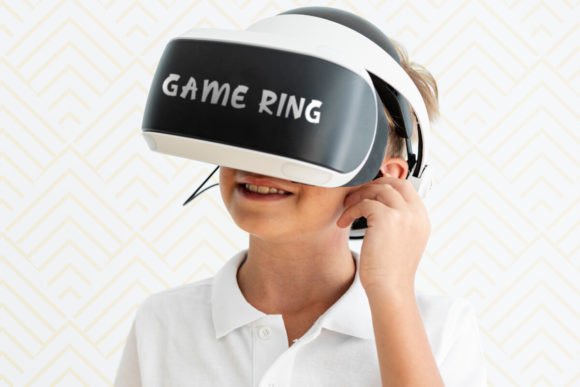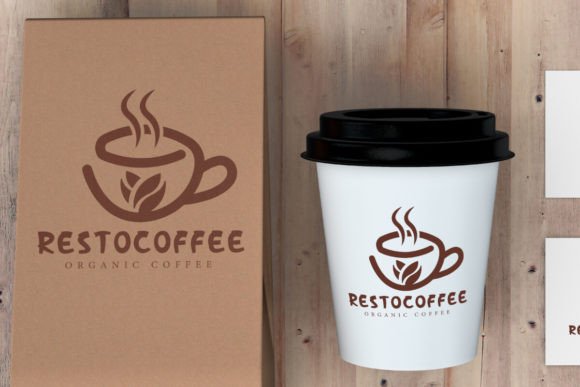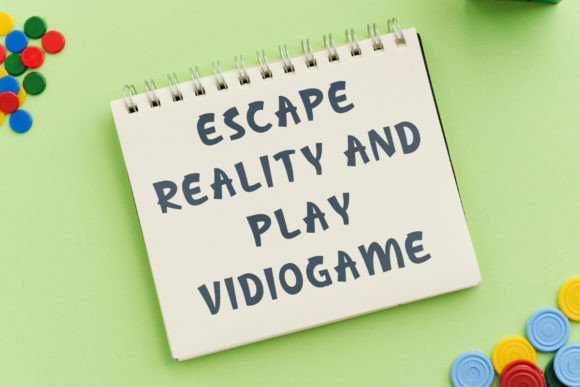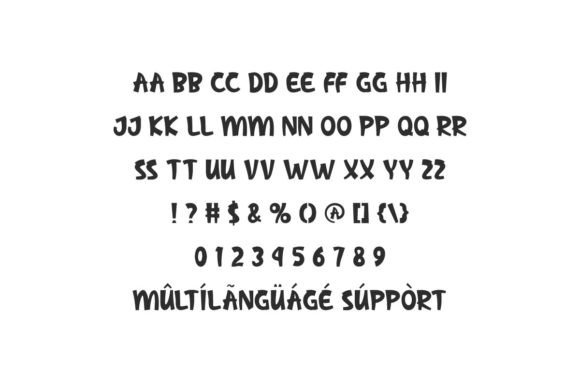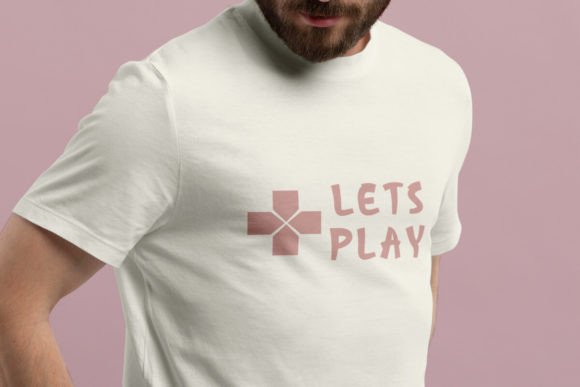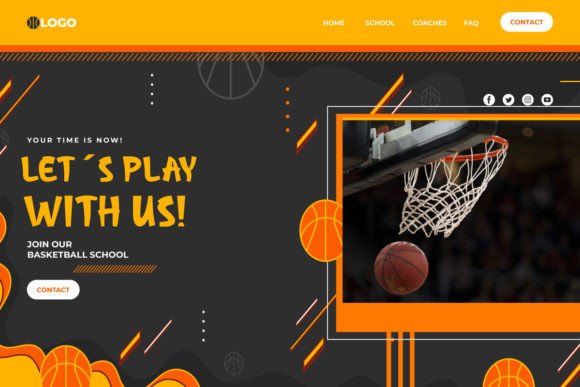
Introducing Game Ring Font: The Ultimate Display Font for Modern Fun and Games
Are you tired of using the same old fonts for your designs? Look no further! Game Ring Font is a modern, fun, and comic-inspired display font designed by VinType Studio to add a touch of excitement to your creative projects. This font is perfect for designers and crafters who want to create engaging and playful designs that capture the attention of their audience.
What is Game Ring Font?
Game Ring Font is a unique and creative display font that is inspired by the world of games. Its modern and fun design makes it perfect for a wide range of industries, including advertisement, café, event or festival, fashion, food and drink, game, handicraft, movie, music, and more. This font is designed to keep you interested and excited, making it ideal for projects that require a playful and energetic touch.
Key Features of Game Ring Font
- Modern and Fun Design: Game Ring Font has a unique and playful design that is sure to capture the attention of your audience.
- Comic-Inspired: This font is inspired by the world of comics, making it perfect for projects that require a fun and energetic touch.
- Display Font: Game Ring Font is a display font, making it perfect for headlines, titles, and other creative projects.
- Versatile: This font is suitable for a wide range of industries, including advertisement, café, event or festival, fashion, food and drink, game, handicraft, movie, music, and more.
Who Can Benefit from Game Ring Font?
Game Ring Font is perfect for designers and crafters who want to add a touch of fun and excitement to their projects. This font is ideal for:
- Graphic Designers: Game Ring Font is perfect for graphic designers who want to create engaging and playful designs for their clients.
- Crafters: This font is ideal for crafters who want to add a personal touch to their handmade projects.
- Advertisers: Game Ring Font is perfect for advertisers who want to create eye-catching and attention-grabbing ads.
- Event Planners: This font is ideal for event planners who want to create fun and exciting event materials.
How to Use Game Ring Font
Using Game Ring Font is easy! Here are some tips on how to incorporate this font into your designs:
- Headlines and Titles: Use Game Ring Font for headlines and titles to add a touch of fun and excitement to your designs.
- Signs and Posters: This font is perfect for signs and posters that require a playful and energetic touch.
- Social Media Graphics: Use Game Ring Font to create engaging and playful social media graphics.
- Packaging Design: This font is ideal for packaging design that requires a fun and modern touch.
Why Choose Game Ring Font?
There are many reasons why you should choose Game Ring Font for your designs. Here are a few:
- Unique Design: Game Ring Font has a unique and playful design that is sure to capture the attention of your audience.
- Versatility: This font is suitable for a wide range of industries and projects.
- Easy to Use: Game Ring Font is easy to use and can be incorporated into your designs in no time.
- High-Quality: This font is designed with high-quality and legibility in mind.